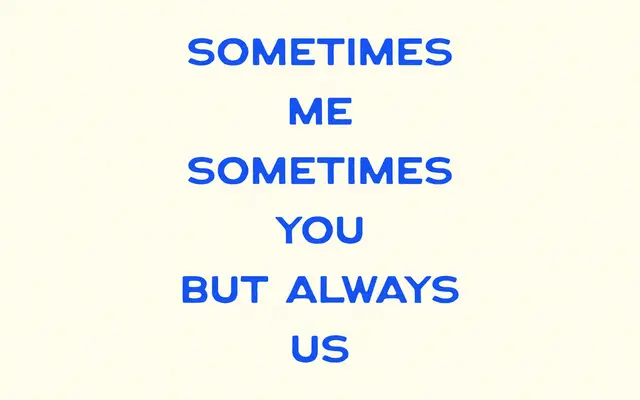
Lennon specimen from Taylor Penton
A single-weight display face drawn from vintage packaging lettering, with rounded terminals, wide letterforms and deliberate hand-drawn irregularities.
Intended for packaging, logos and short-burst branding work, Lennon keeps its charm restrained enough to stay legible at a range of sizes. The rounded terminals and slightly uneven stroke quality recall mid-century product lettering without tipping into pastiche. Western European language support, including Icelandic and Welsh, was expanded in a 2026 update alongside a fuller punctuation set.
A single-weight display face drawn from vintage packaging lettering traditions, with rounded terminals and wide letterforms that place it firmly in the retro/display category rather than any functional text classification.